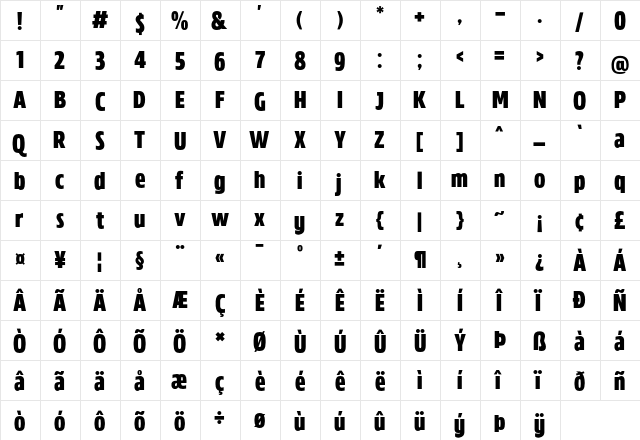
MADE Florence Sans Regular
| Foundry | MadeType |
| Designer | MadeType |
Design Context for MADE Florence Sans Typeface
MADE Florence Sans offers clean, dependable letterforms without strong stylistic allegiance, making it a practical choice for designers who need flexibility.